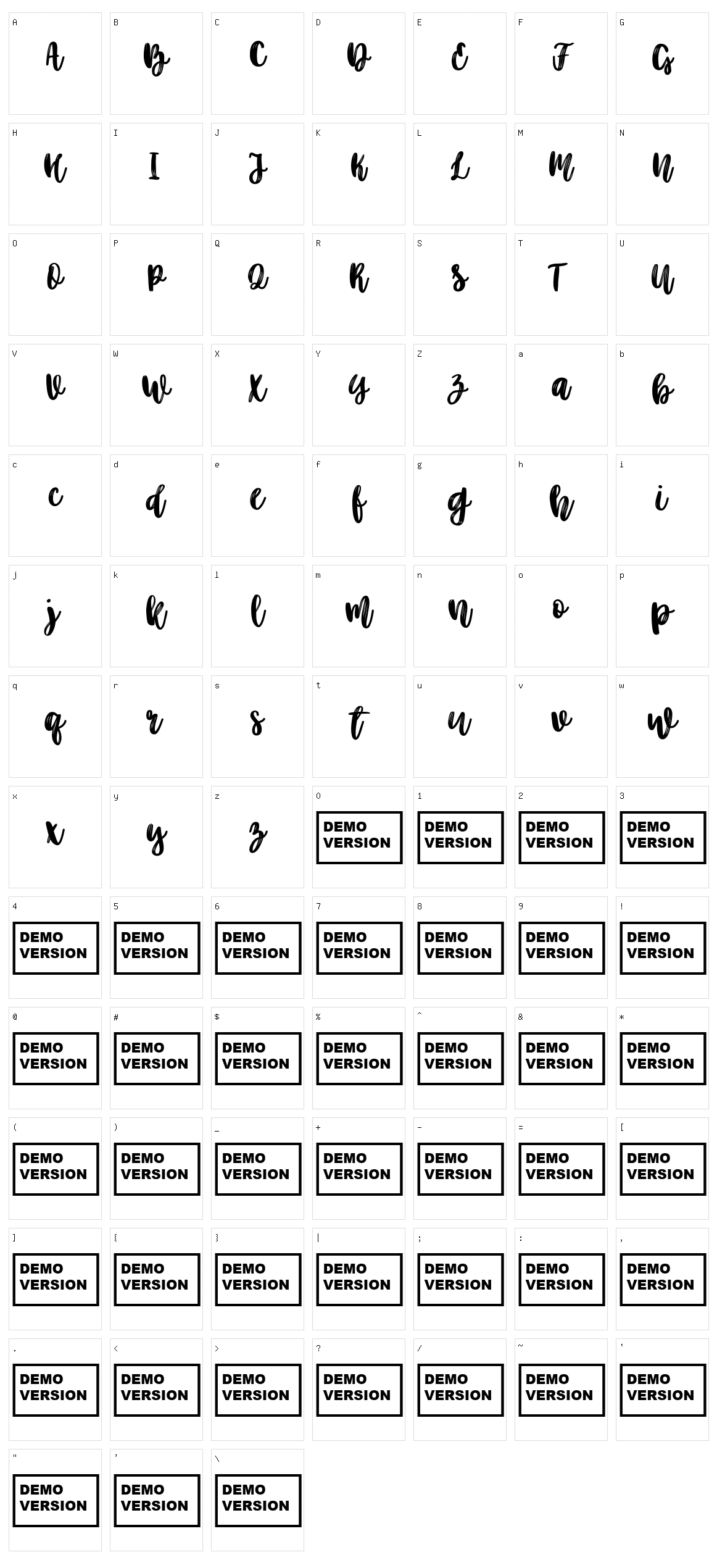
The free font Better Together Script is carefully designed by Katsia Jazwinska, showcasing a thoughtful balance of creativity and usability and falls under the Script font style. When you download the ZIP file, it contains only 2616.2 KB of font files, making it lightweight and quick to download. Please review the license details below to understand permitted usage and distribution rights. If license information is not available, we recommend using this font for personal projects only or contacting the author directly for commercial usage permissions.